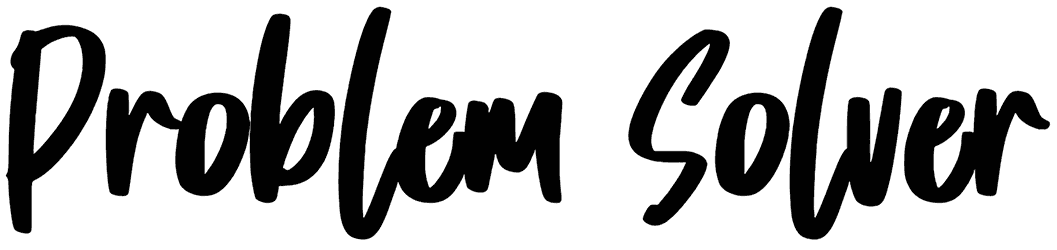
Problem Solver Font
Do you need a suggestion to create a modern and realistic face for your design? This handwritten font with its smooth and casual lettering would be a perfect choice. The Problem Solver font doesn’t offer some numbers, but can still be a distinct item for lots of projects like flyers, postcards, planners, and so forth.